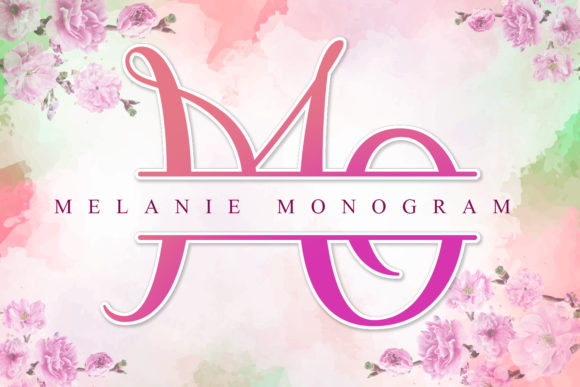
Unleash your creativity with Melanie Monogram, the enchanting decorative font that captures the essence of elegance and charm. This meticulously crafted font, brought to you by niyos.studio, oozes authenticity and is perfect for adding a touch of timeless beauty to your projects.
With Melanie Monogram, you can effortlessly craft captivating invitations that exude a sense of occasion. Its graceful lines and intricate details will add a touch of sophistication to your special events, making them truly unforgettable.
Envision stunning stationary art that radiates warmth and personality. Melanie Monogram's delicate strokes and playful flourishes bring a sense of coziness and charm to your designs, creating pieces that are both visually appealing and emotionally resonant.
Make your social media posts stand out from the crowd with Melanie Monogram's eye-catching appeal. Its unique and stylish characters will captivate your audience, drawing them into your content and leaving a lasting impression.
Create adorable greeting cards that are sure to bring a smile to the recipient's face. Melanie Monogram's playful and cheerful vibe adds a touch of joy and warmth to your messages, making them even more meaningful.
Immerse yourself in a world of creativity with Melanie Monogram. Its versatility and timeless beauty make it the perfect choice for a wide range of projects. From wedding invitations to greeting cards, social media posts to stationary art, this font adds a touch of elegance and charm to any endeavor.
Melanie Monogram is more than just a font; it's an expression of your personal style and creativity. Download it today and embark on a journey of artistic exploration, transforming your ideas into stunning visual masterpieces.